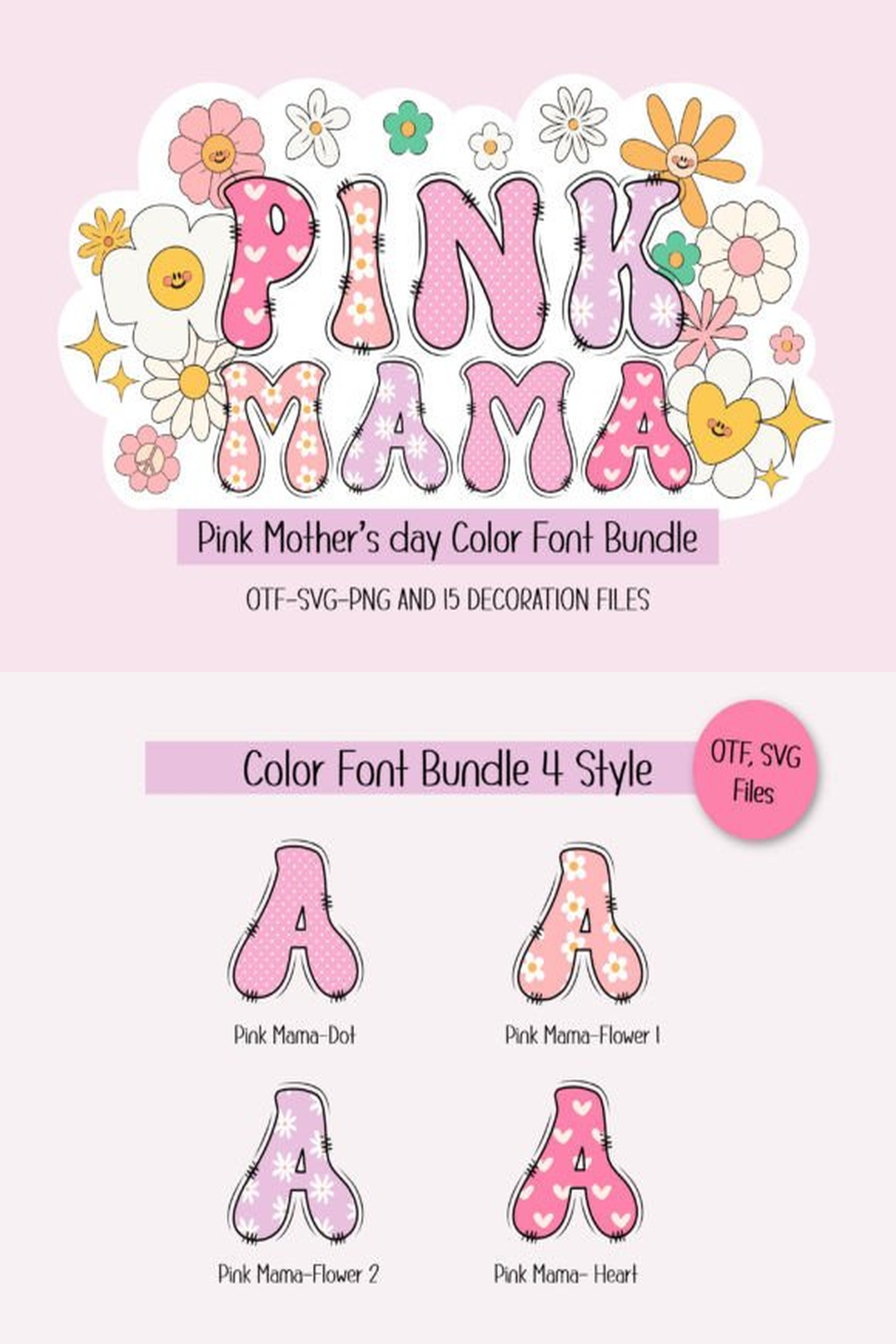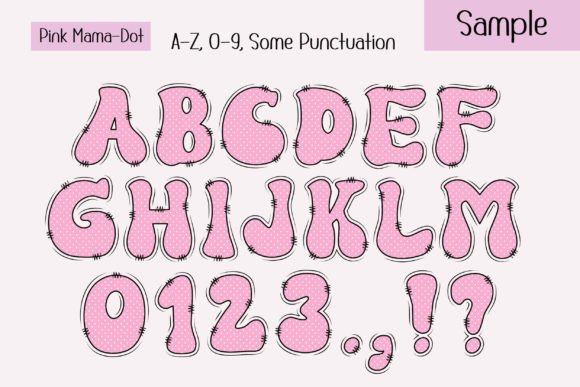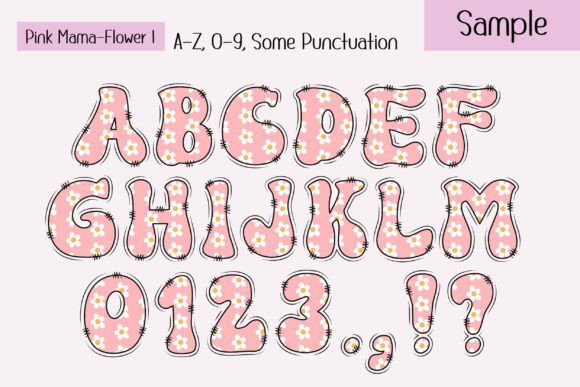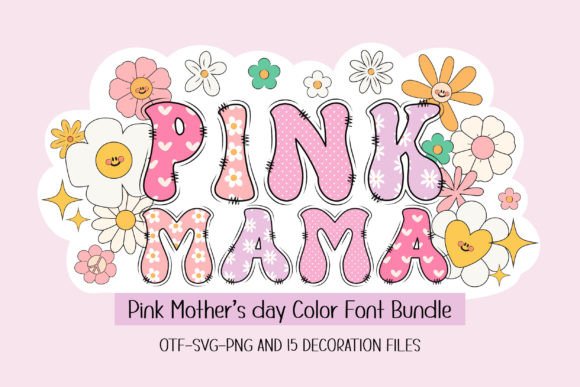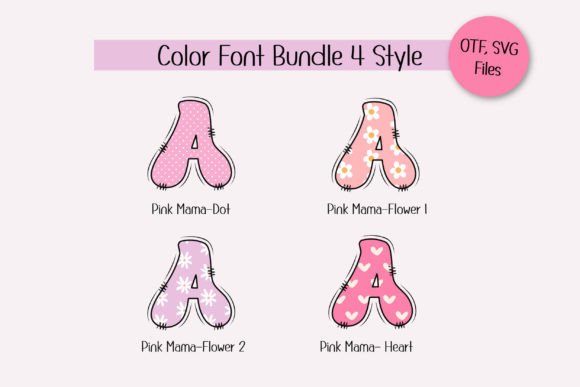
Pink Mama Font: Groovy Retro Display Font for Mother’s Day Crafts
About the Pink Mama Font
Get ready to be inspired by Pink Mama Font, a fresh and dynamic typeface for modern creators. Introducing “Pink Mama” a font designed to celebrate the essence of Mother’s Day with a delightful blend of groovy style and floral patterns in sweet pastel colors. With 4 font styles and a special collection of 15 PNG bonuses, this bundle offers endless opportunities to express your creativity. Perfect for custom DIY craft projects, personalized names, sublimations, posters, and more, “Pink Mama” adds a touch of maternal love and retro charm to any design.